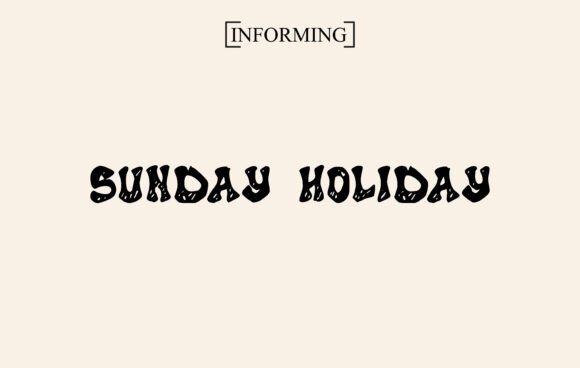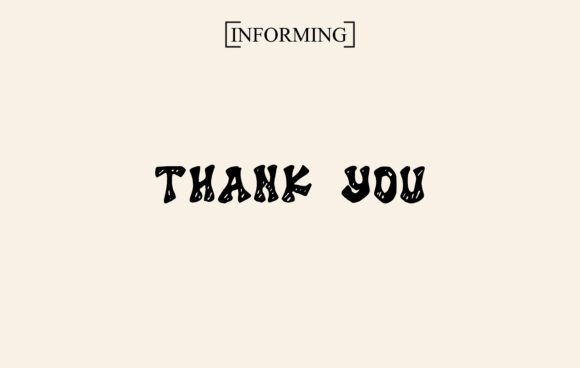
Introduction to Faithful Flow Font
Remember the rush of excitement when you finally find the perfect font for your creative project? It’s like the missing puzzle piece that brings everything together. For designers, it’s a moment of pure joy, and it’s what makes the process of bringing ideas to life so rewarding.
One such font that’s sure to bring that excitement is the Faithful Flow Font. Expertly designed to be a true favorite, this font has the potential to take your creative ideas to the highest level. Whether you’re working on a magazine headline, a social media post, or even a wedding invitation, this font is perfect for any design resource.
With its legible design and high-quality aesthetic, the Faithful Flow Font is a valuable addition to any designer’s toolkit. And the best part? It’s available for free download, making it a fantastic resource for designers on a budget. So why settle for a mediocre font when you can have a high-quality one like Faithful Flow?
Key Features of Faithful Flow Font
- High-quality design resource ideal for creative projects, offering a unique and modern aesthetic.
- Features a transparent background, allowing for easy customization and versatility in design applications.
- Resolution: Optimized for high-resolution displays, ensuring crisp and clear text output.
- Unique characteristics: Features a flowing, handwritten style with subtle flair and movement, perfect for adding a touch of elegance to creative projects.
Honest Review: Faithful Flow Font
I recently had the opportunity to work with the Faithful Flow Font, and I must say it’s been a game-changer for my creative projects. This font is a true design resource, offering a high-quality, elegant feel that’s perfect for a variety of applications.
What works well: ✨ The font’s versatility is one of its strongest assets. It’s available for free download, making it an excellent choice for designers on a budget. The transparent background option also provides a clean and modern look that’s perfect for digital design. I’ve been using it for all my UI/UX projects, and the results have been impressive.
Here are some of the key features I’ve found useful:
- Transparent background for a modern look
- Excellent choice for UI/UX design
⚠️ One limitation I’ve noticed is that the font may not be suitable for certain types of text-heavy designs, such as books or magazines. However, for most creative projects, it’s an excellent choice.
Overall, I’m thoroughly impressed with the Faithful Flow Font. It’s a high-quality design resource that’s perfect for designers looking for a unique and elegant font. I highly recommend it for any creative project.
Tips for Getting the Most Out of Faithful Flow Font
For the best results, use Faithful Flow Font in conjunction with other high-quality design resources. Experiment with different font sizes and styles to find the perfect fit for your creative project. Additionally, take advantage of the font’s transparent background feature to add depth and interest to your designs.
Common Use Cases for Faithful Flow Font
Faithful Flow Font is ideal for a variety of design projects, including logos, business cards, and presentations. Its high quality and versatility make it a great choice for creative professionals and hobbyists alike. With Faithful Flow Font, you can create stunning designs that stand out from the crowd.